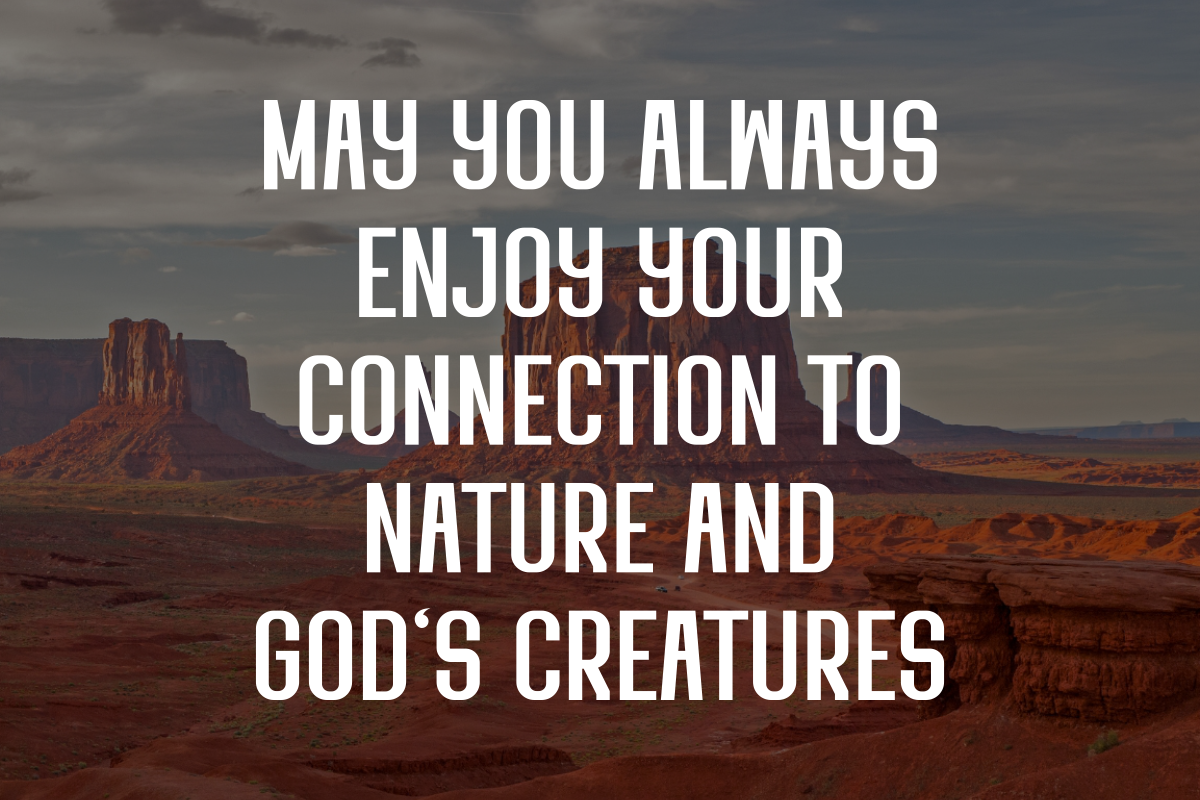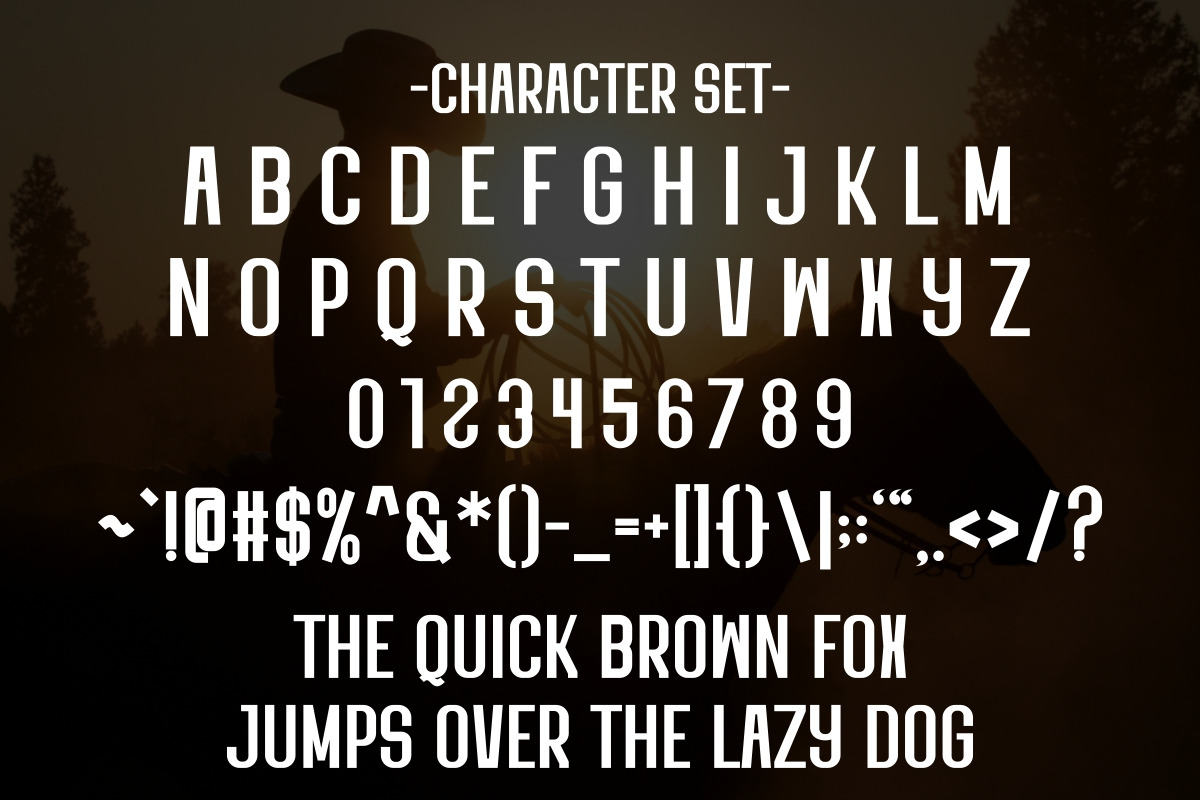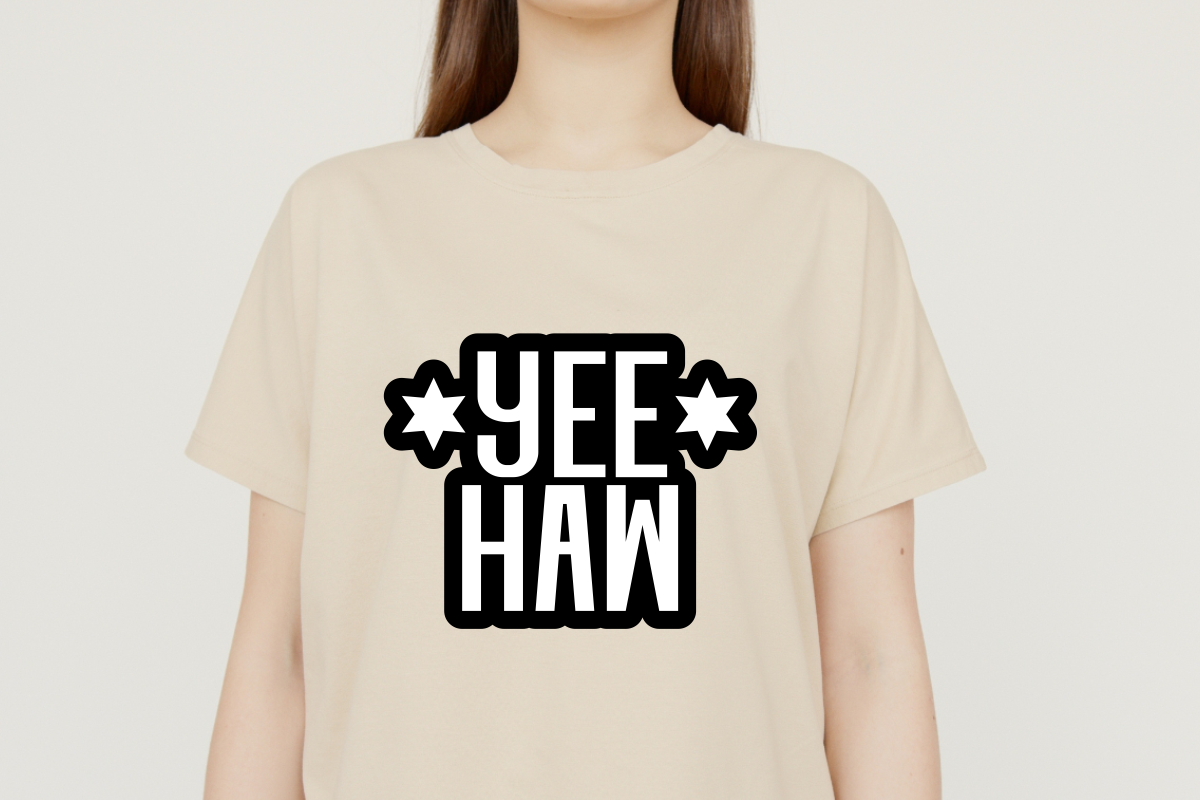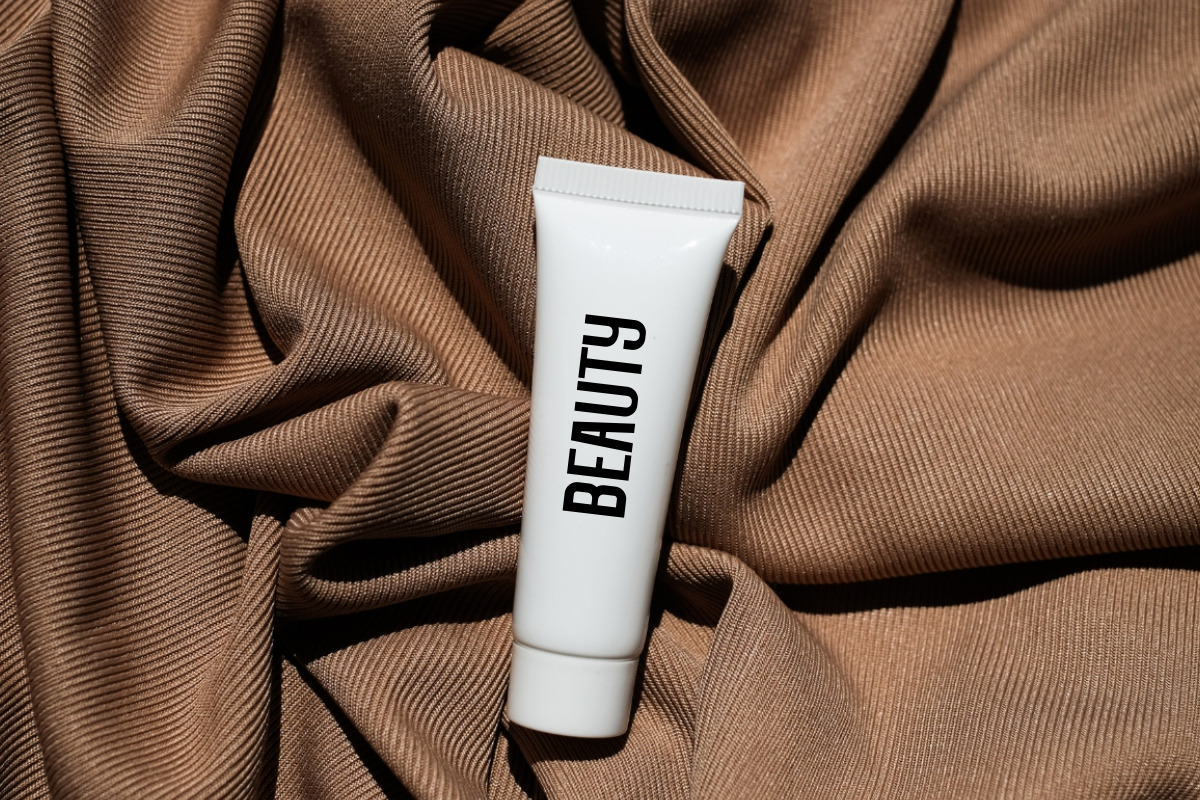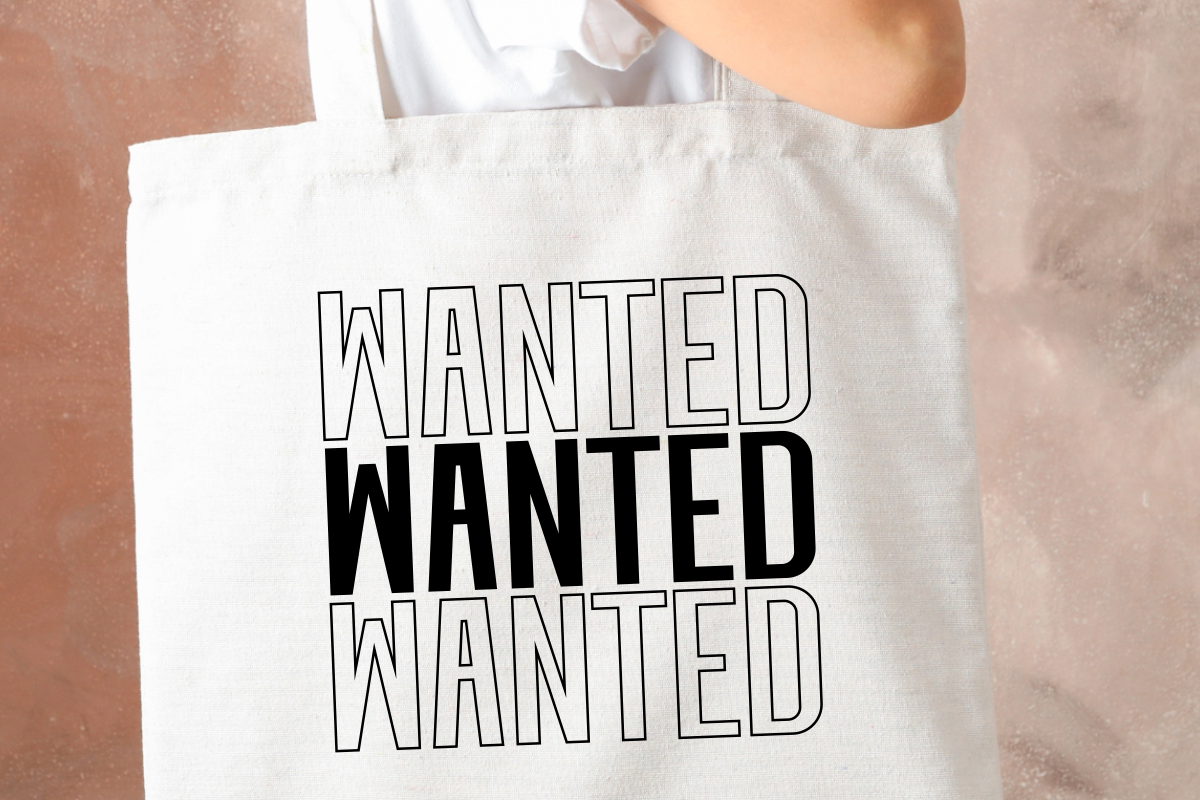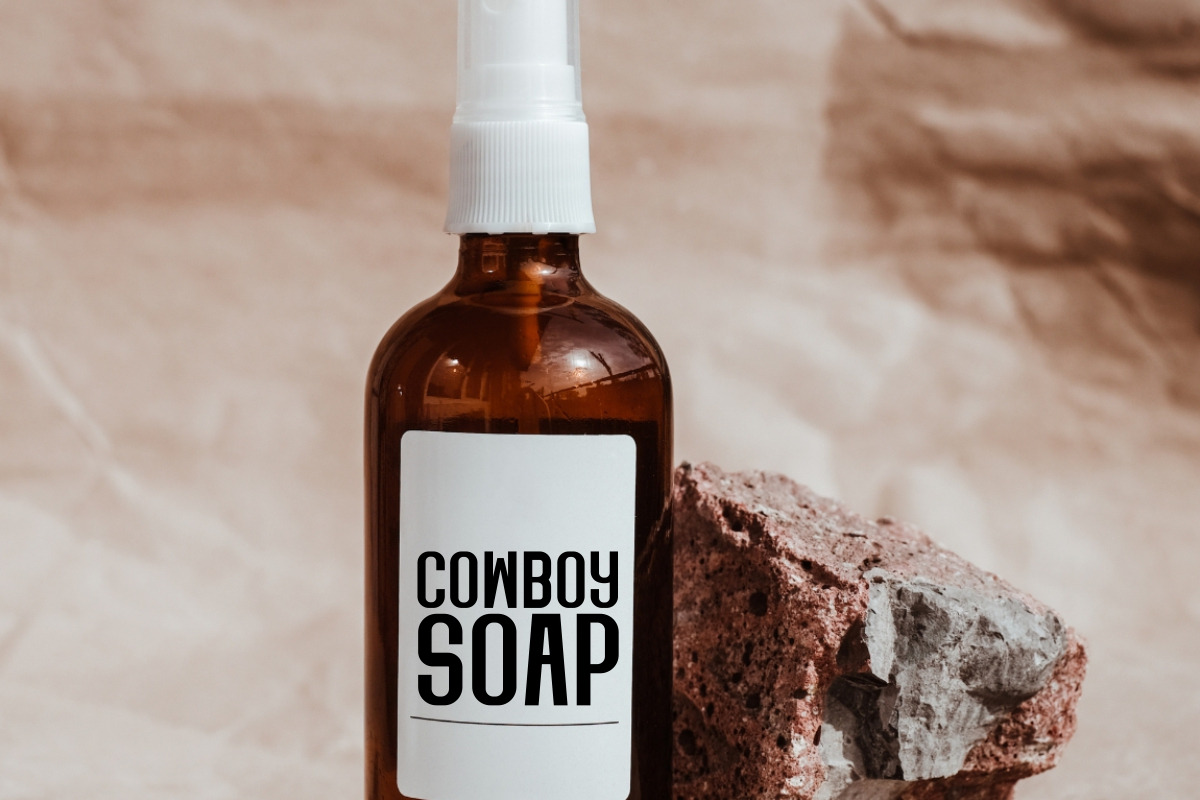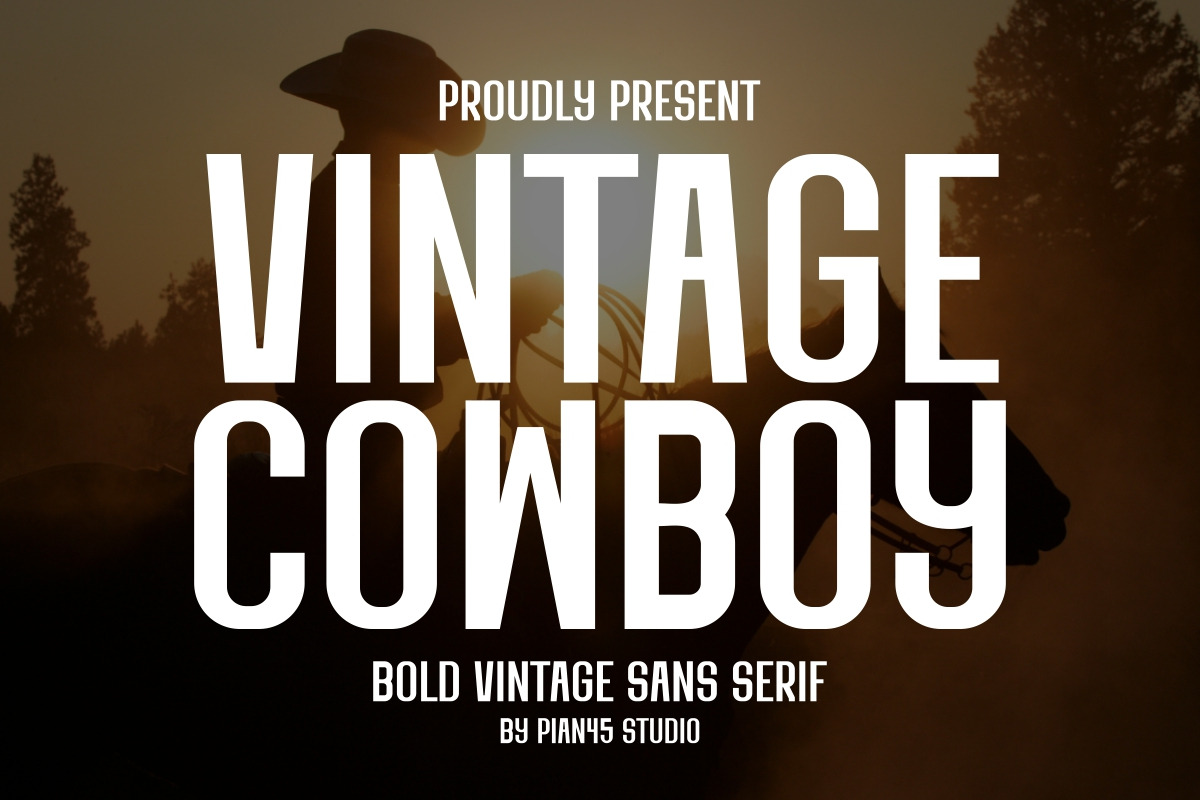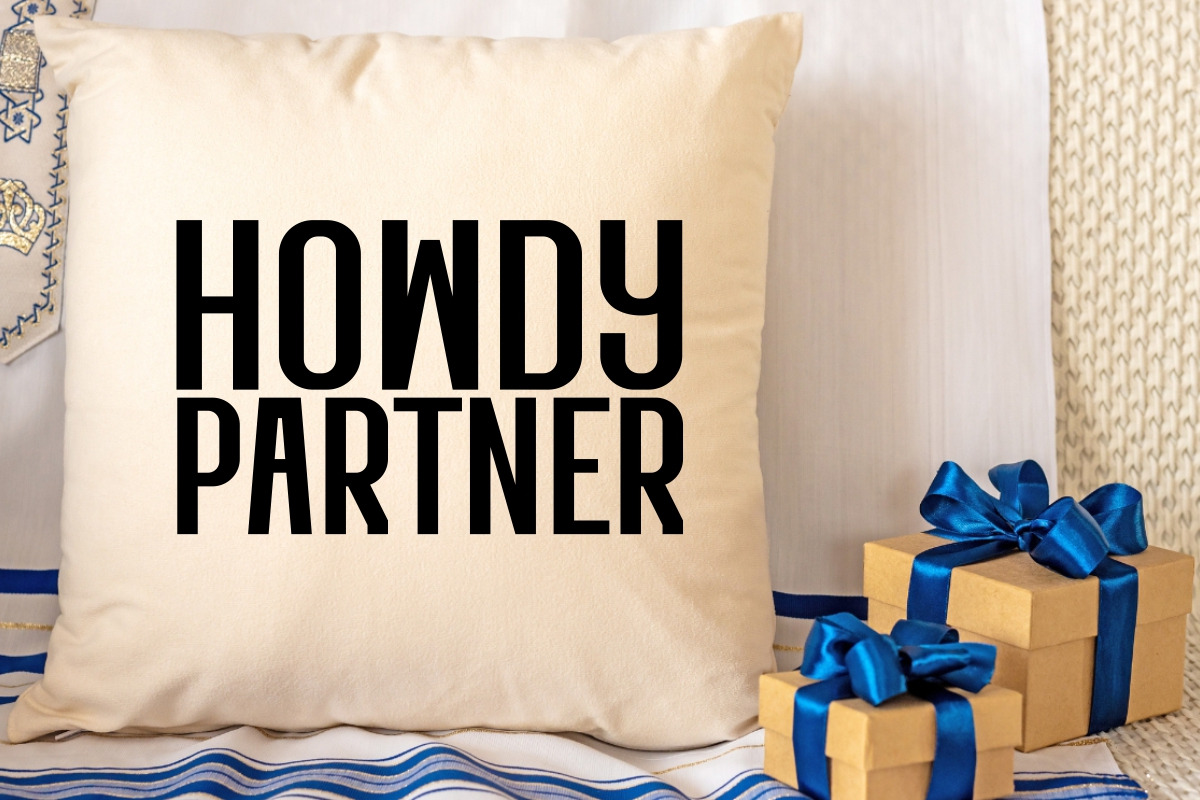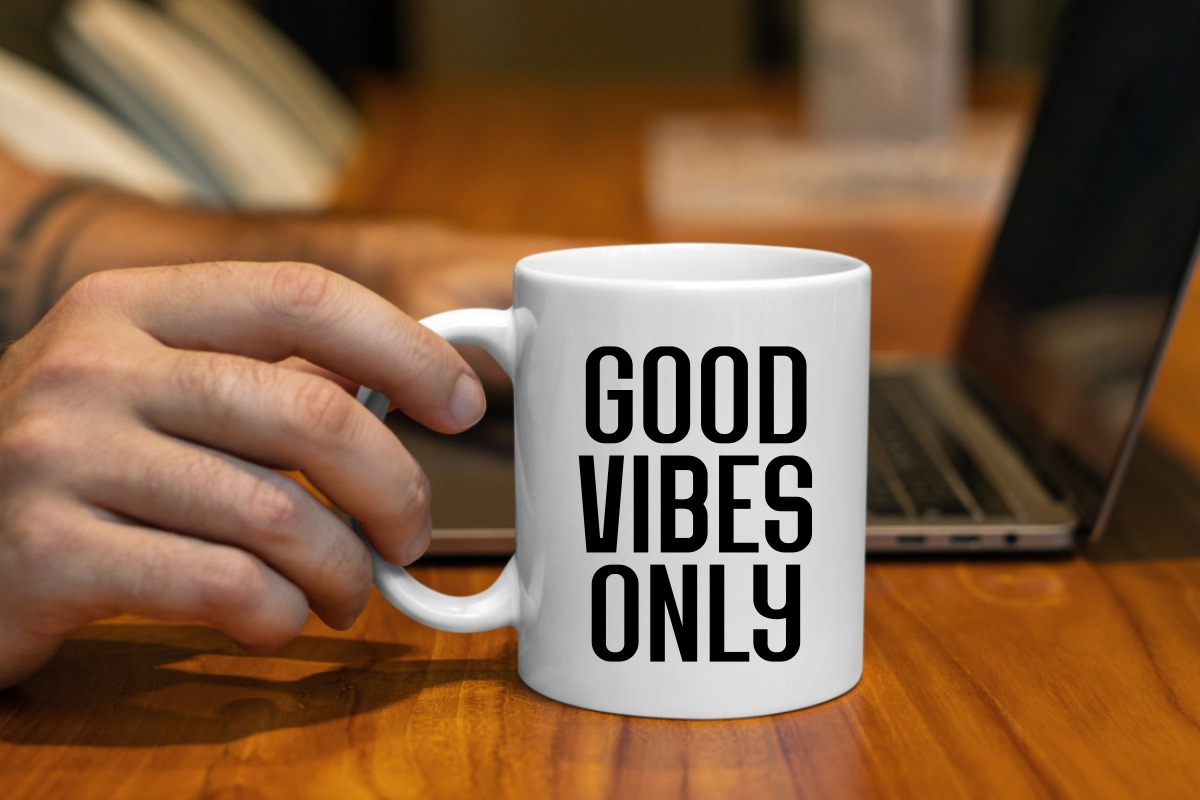
Vintage Cowboy - Bold Vintage Font
Vintage Cowboy is a clean and bold vintage sans serif font that combines modern and classic elegance. This font brings a refined and stylish look to any creation. Perfect for quotes, posters, backgrounds, apparel design, t-shirts, tote bags, mugs and greeting cards.